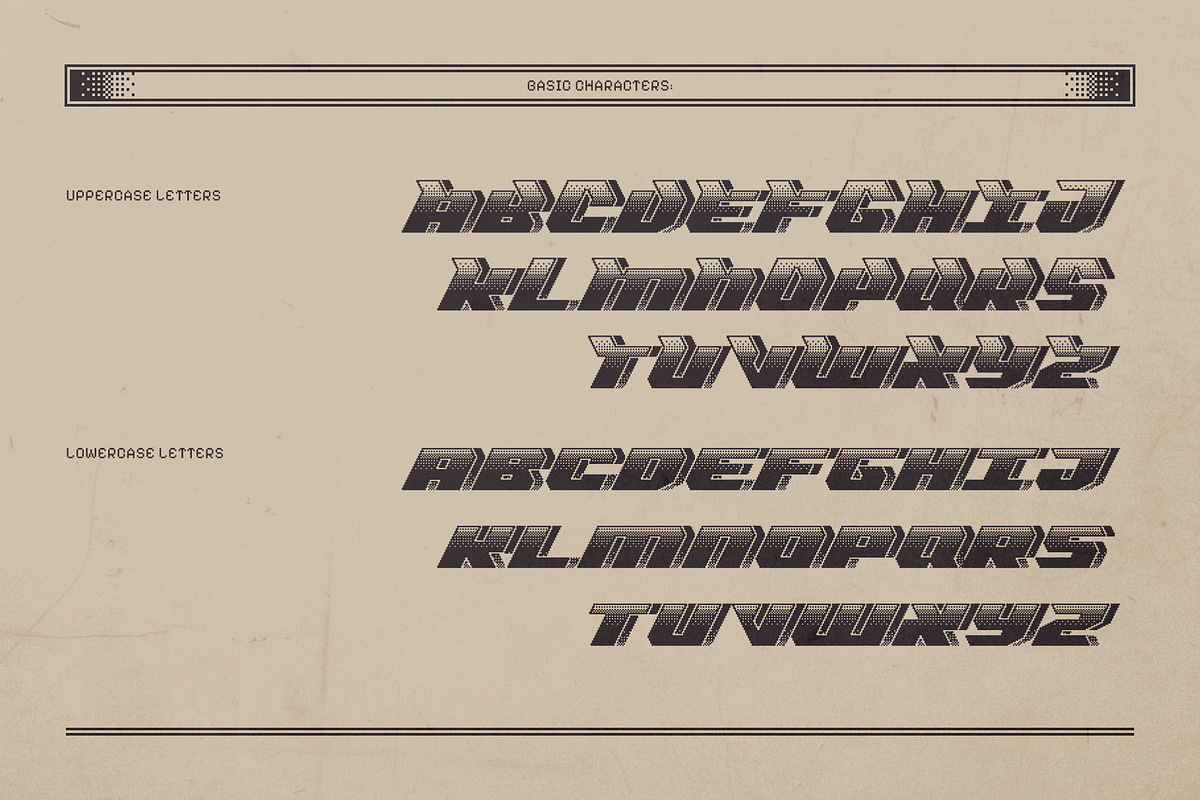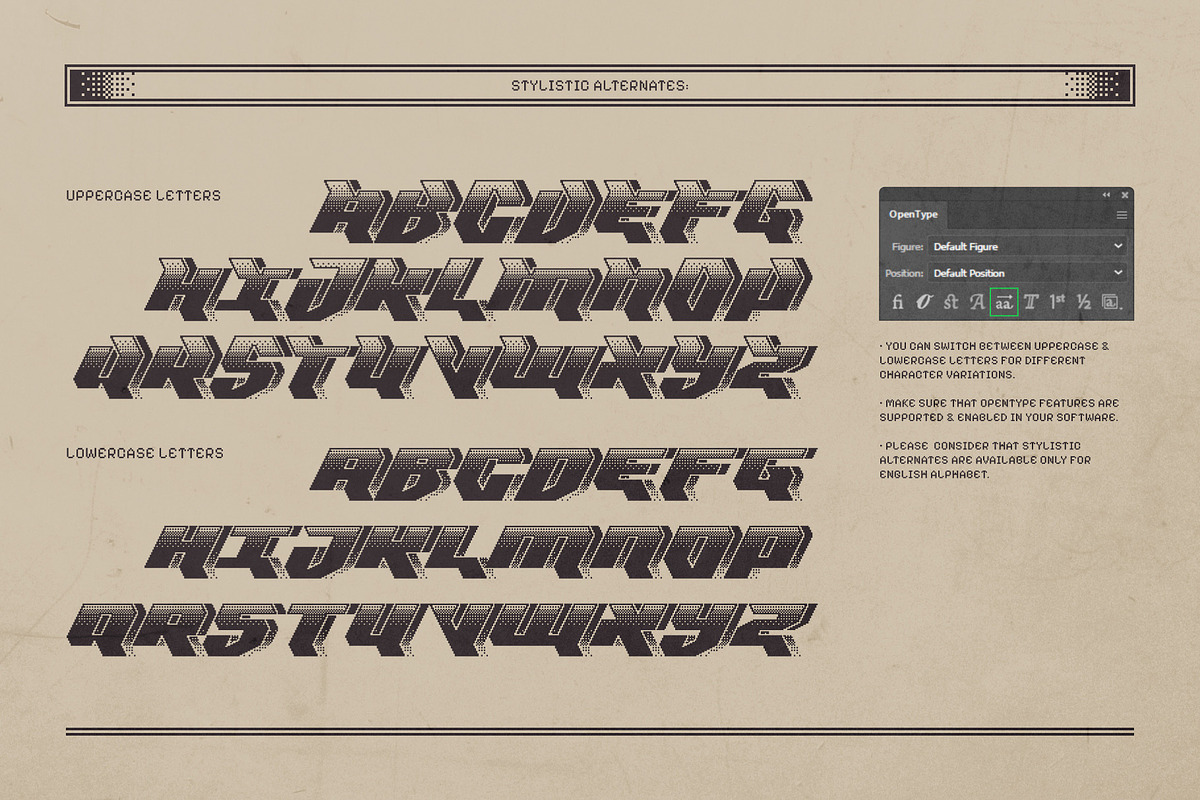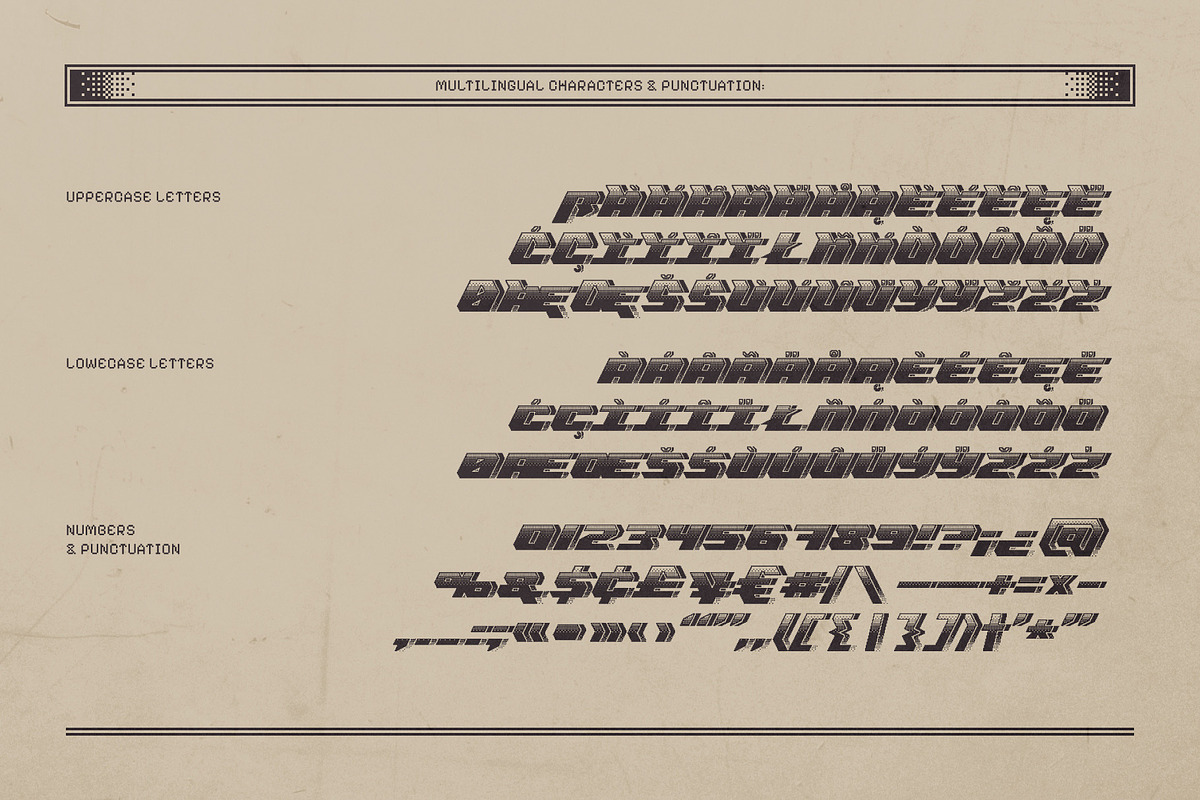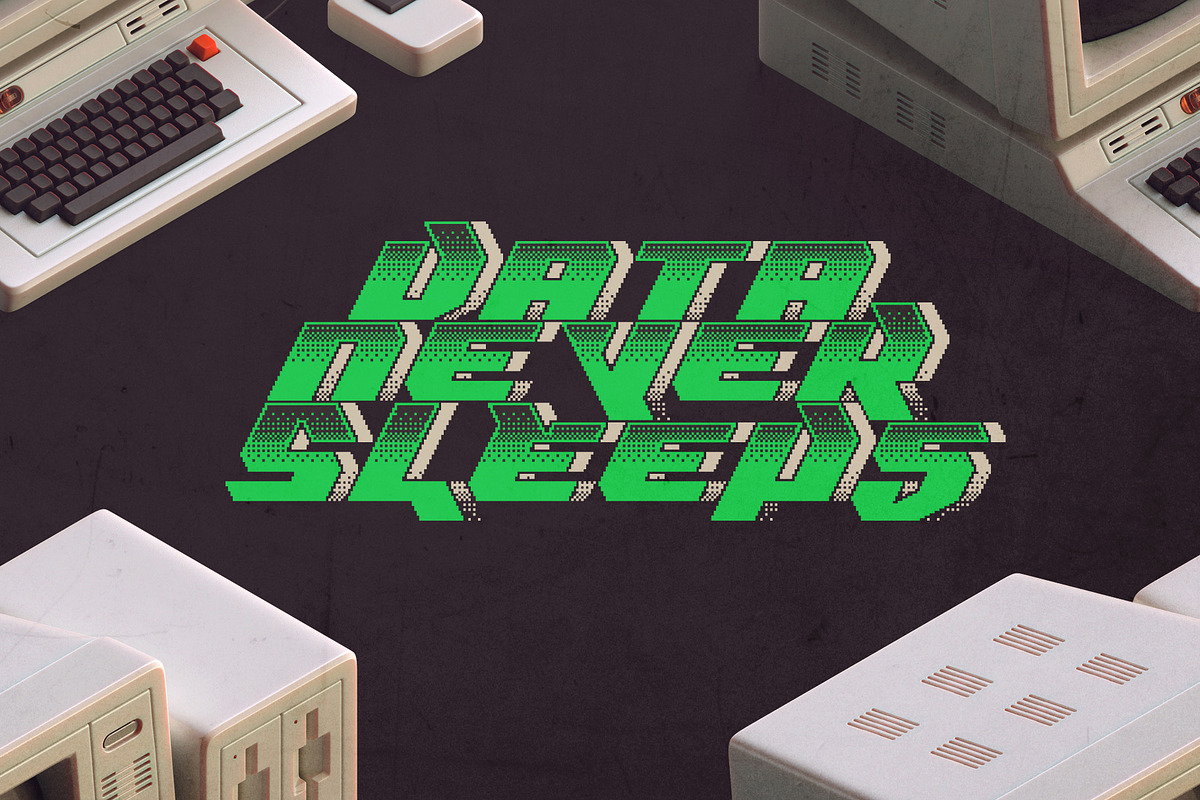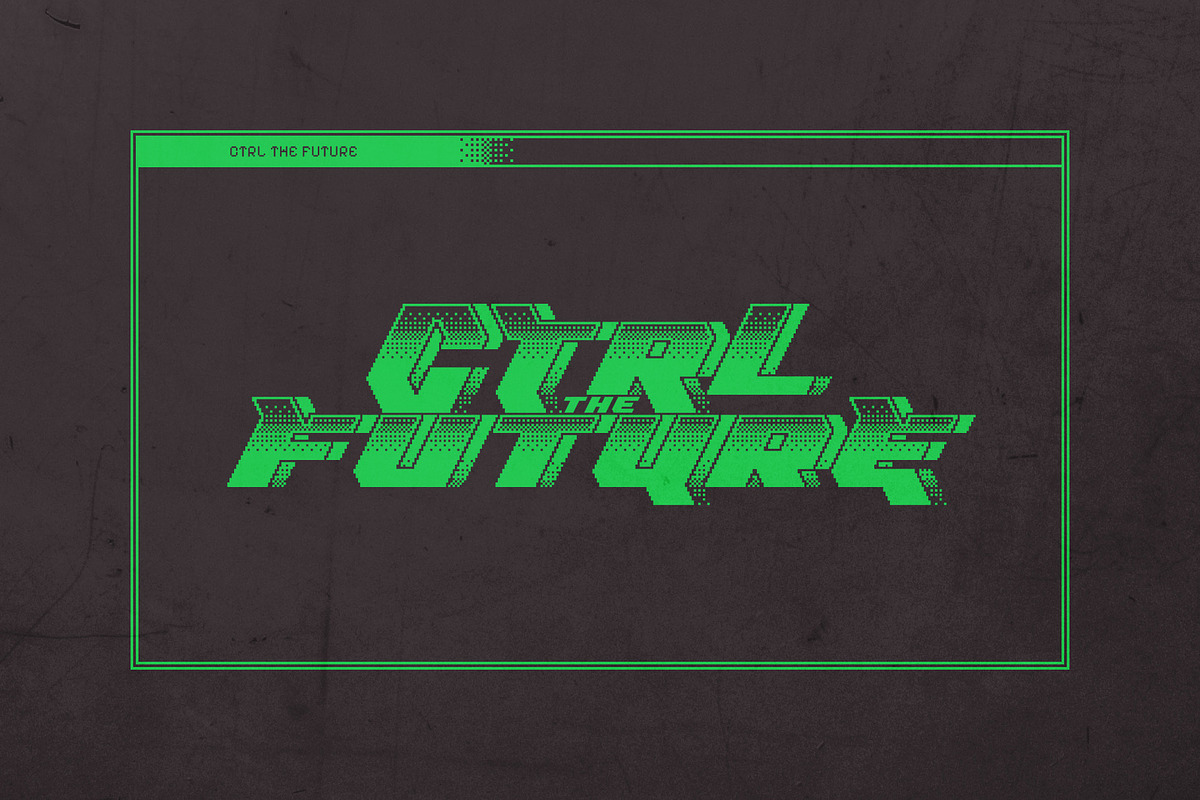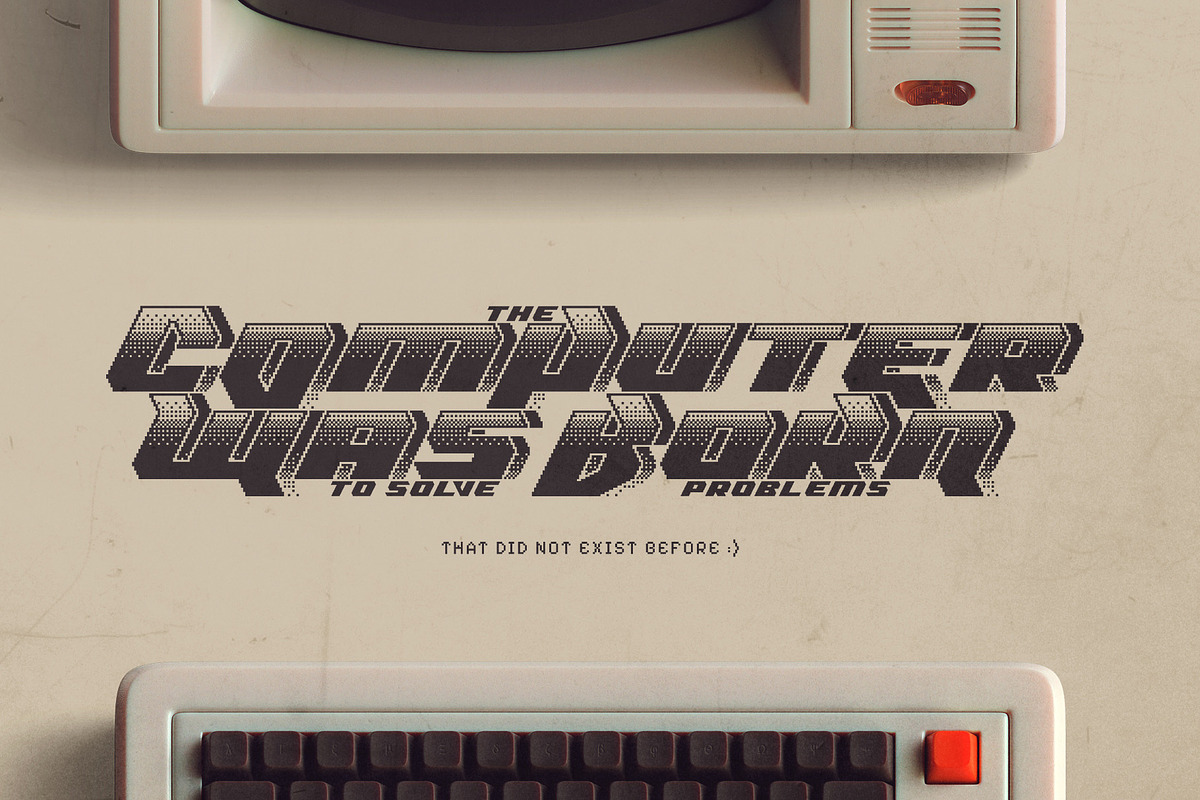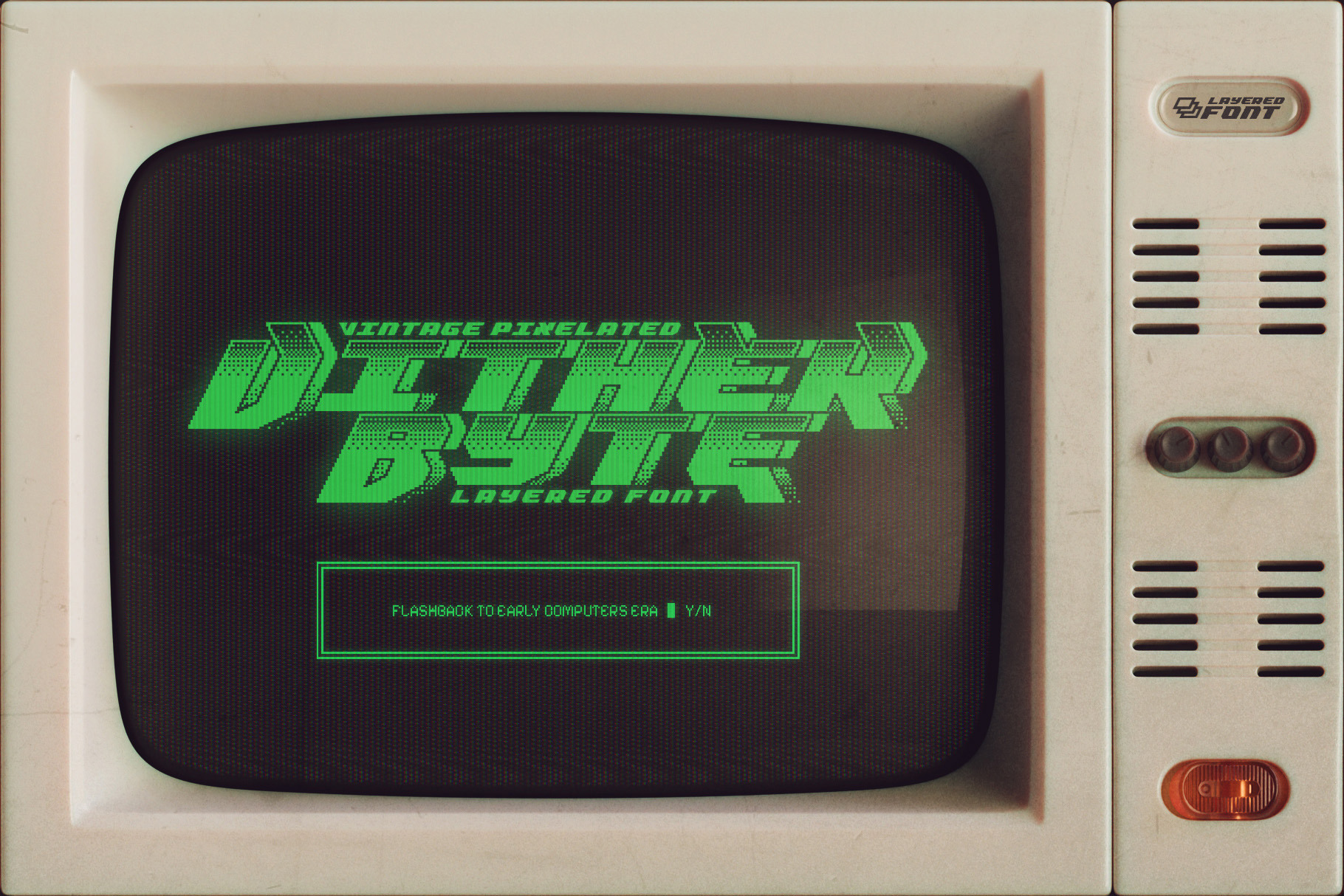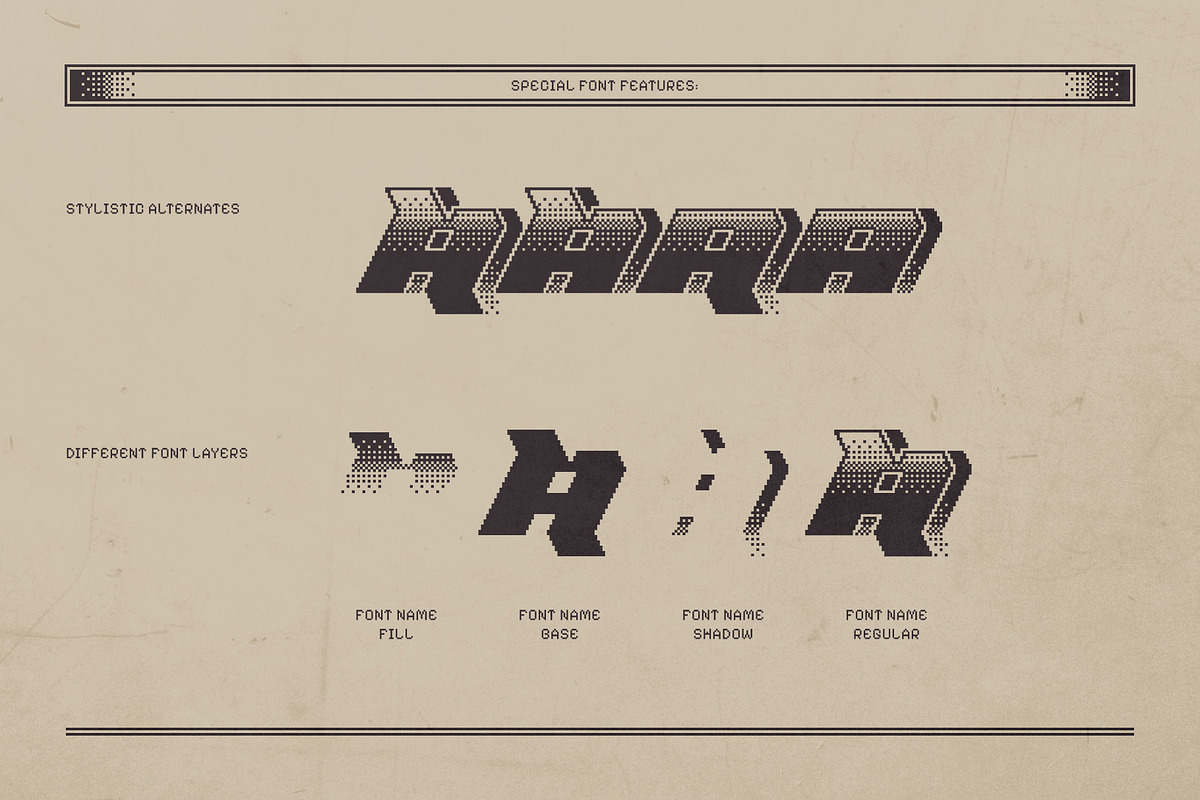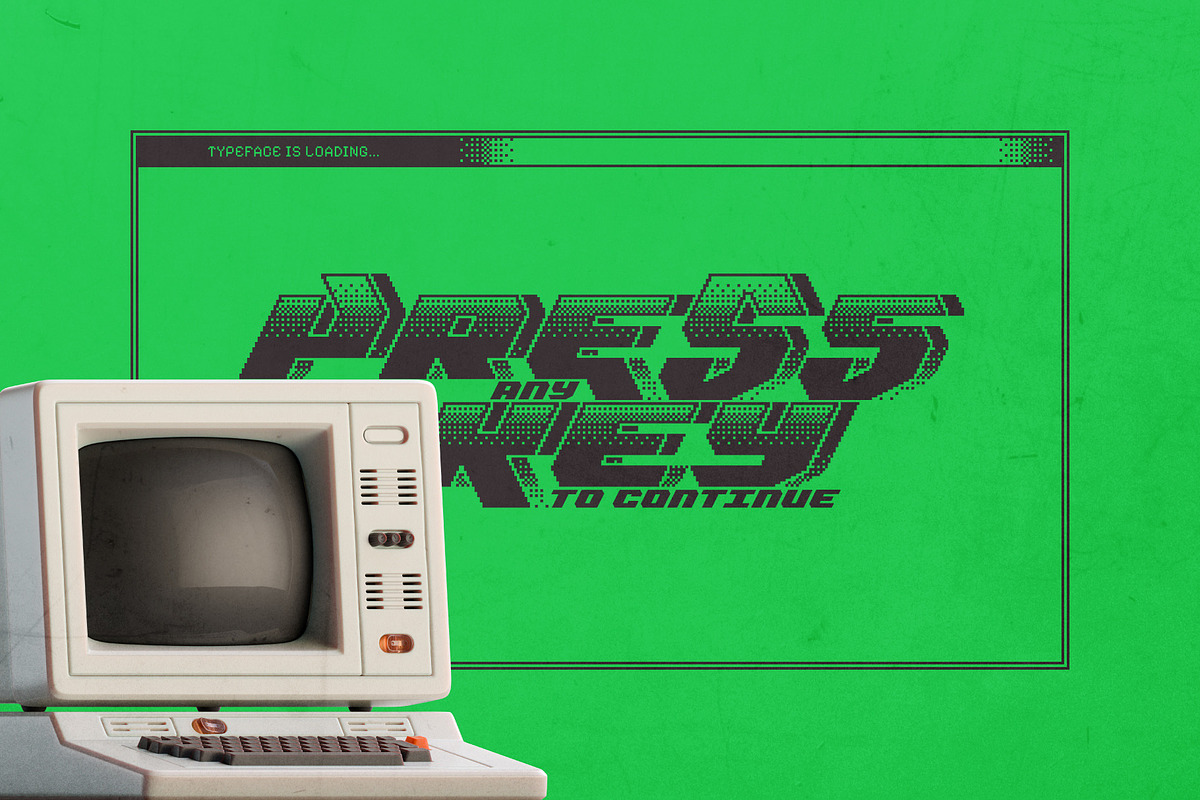
Dither Byte - Vintage Pixel Font
Introducing Dither Byte Font — a typeface that channels the iconic look of early 1980s computer displays and arcade machines. With blocky characters and a dithered pixel pattern, it captures the retro charm of vintage tech and 8-bit aesthetics. Perfect for designs that evoke nostalgia, digital minimalism, or classic gaming vibes.
Using OpenType features, you can access 52 stylistic alternates to create more dynamic lettering compositions. The font set also includes separate files for different layers, making recoloring quick and easy. Dither Byte supports multiple languages — check the screenshot to view the full character set.